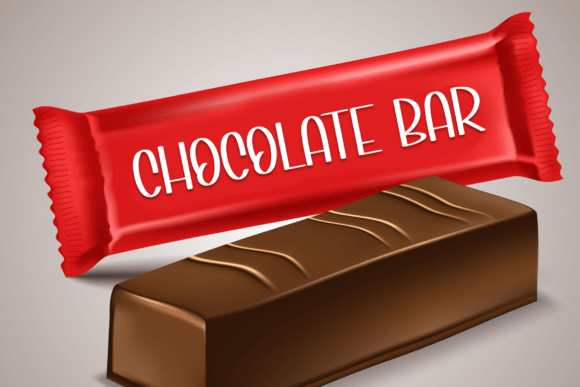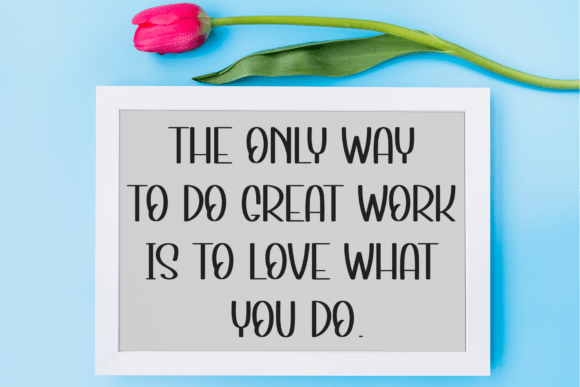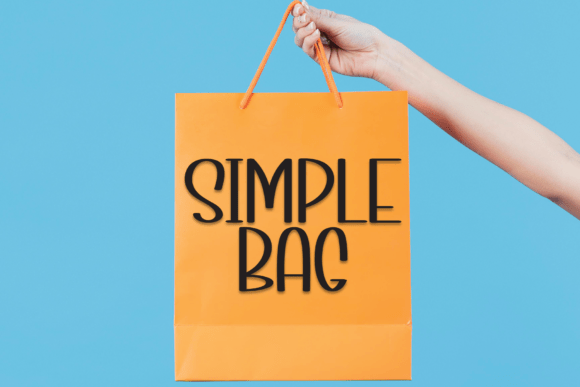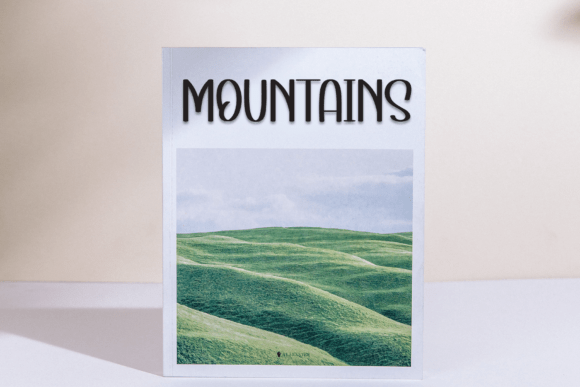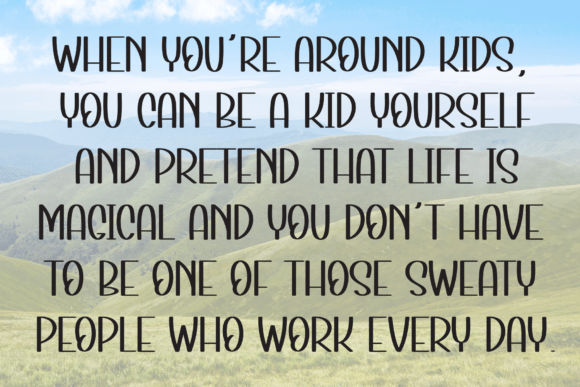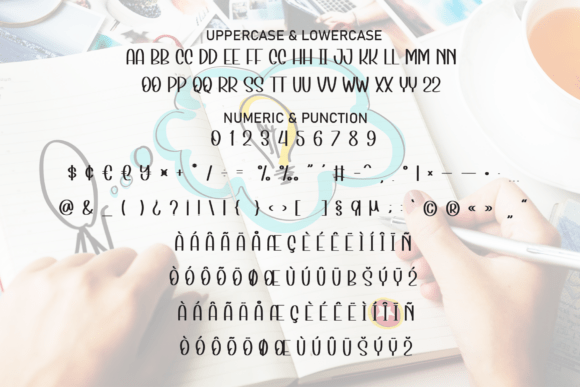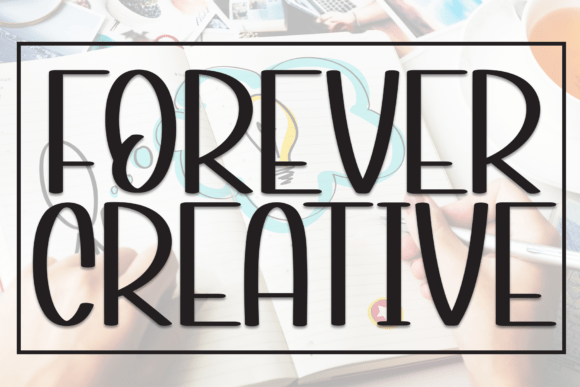
Introducing Forever Creative Font: The Perfect Handwritten Display Font for Your Creative Projects
Are you looking for a font that can add a personal touch to your designs? Look no further than Forever Creative Font, a beautiful handwritten display font that brings charm and character to every letter. With its playful strokes and casual flow, this font captures the essence of authentic handwriting, making it perfect for a wide range of creative projects.
Handwritten fonts have a unique ability to add a personal touch to any design. They evoke a sense of warmth, friendliness, and approachability that is hard to achieve with more formal fonts. Forever Creative Font takes this to the next level with its playful, cursive strokes and casual flow. Each letter is carefully crafted to resemble authentic handwriting, making it perfect for adding a touch of personality to your designs.
Forever Creative Font is incredibly versatile, making it suitable for a wide range of creative projects. Here are just a few ideas to get you started:
- Quotes and Posters: Add a personal touch to your inspirational quotes and posters with Forever Creative Font. Its playful strokes and casual flow make it perfect for creating eye-catching and shareable content.
- Greeting Cards: Create beautiful, one-of-a-kind greeting cards for special occasions like birthdays, weddings, and holidays. The font’s handwritten style adds a touch of warmth and personality to your cards.
- Branding and Logo Design: Use Forever Creative Font to create a unique and memorable brand identity. Its playful, cursive strokes make it perfect for modern logos, business cards, and letterheads.
- Kids’ Projects: Forever Creative Font is also perfect for kids’ projects, such as educational materials, activity sheets, and posters. Its playful style will appeal to kids and add a touch of fun to your designs.
Key Features of Forever Creative Font
So, what makes Forever Creative Font so special? Here are some of its key features:
- Handwritten Style: Forever Creative Font has a beautiful, handwritten style that captures the essence of authentic handwriting.
- Playful Strokes: The font features playful, cursive strokes that add a touch of whimsy to your designs.
- Casual Flow: The font’s casual flow makes it perfect for creating eye-catching and shareable content.
- Versatile: Forever Creative Font is incredibly versatile, making it suitable for a wide range of creative projects.
Why Choose Forever Creative Font?
With so many fonts to choose from, why should you choose Forever Creative Font? Here are just a few reasons:
- Unique Style: Forever Creative Font has a unique, handwritten style that will set your designs apart from the crowd.
- High-Quality: Forever Creative Font is a high-quality font that is designed to produce crisp, clear results at any size.
In conclusion, Forever Creative Font is a beautiful handwritten display font that brings charm and character to every letter. With its playful strokes and casual flow, it captures the essence of authentic handwriting, making it perfect for a wide range of creative projects. Whether you’re a designer, crafter, or DIY enthusiast, Forever Creative Font is the perfect choice for adding a personal touch to your designs. So why wait? Download Forever Creative Font today and start creating your own unique and eye-catching designs!